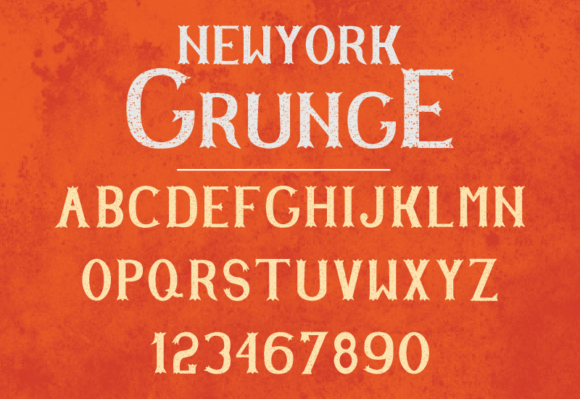
Introduction to Newyork Grunge Font
You’ve spent hours browsing through design resources, searching for the perfect font to elevate your creative project. But have you ever stumbled upon a font that instantly transports you to the vibrant streets of New York City? If not, let me introduce you to the Newyork Grunge Font, a vintage gem that’s about to become your new favorite design companion.
Imagine a font that exudes a raw, edgy charm, with geometric shapes and balanced proportions that scream Western cool. The Newyork Grunge Font is more than just a stylish design element – it’s a game-changer for designers who crave a unique aesthetic that sets their projects apart.
Key Features of Newyork Grunge Font
- Unique, distressed texture design ideal for creative projects, adding an urban touch to any design resource.
- Transparent background, allowing for easy layering and manipulation within design compositions.
- High-resolution design, suitable for print and digital applications, including posters, flyers, and social media graphics.
- Perfect for designers seeking a gritty, urban aesthetic for their creative projects.
Honest Review: Newyork Grunge Font
As a designer, I’m always on the lookout for high-quality design resources to elevate my creative projects. The Newyork Grunge Font caught my eye with its edgy, industrial aesthetic, perfect for adding a touch of grit to any design.
What works well with the Newyork Grunge Font is its versatility. It’s suitable for a wide range of designs, from posters and flyers to digital products and even logos. I appreciate how the font’s bold lines and rough texture add depth and visual interest to any layout. ✨ The transparent background feature also allows for seamless integration with other design elements.
However, there are some limitations to consider. The font’s rough texture can sometimes make it difficult to read, particularly in small font sizes. Additionally, the font may not be suitable for all types of designs, such as those requiring a clean, minimalist aesthetic. ⚠️
Overall, I’m impressed with the Newyork Grunge Font’s unique character and versatility. While it may not be perfect for every design project, it’s an excellent addition to any designer’s toolkit.
- Transparent background feature
- Edgy, industrial aesthetic
- Suitable for posters, flyers, digital products, and logos
The Newyork Grunge Font is a unique and high-quality design resource ideal for creative projects. This free download offers a distressed, edgy look that can elevate your designs. In this guide, we’ll walk you through how to use the Newyork Grunge Font in various platforms.
Tips for Getting the Most Out of Newyork Grunge Font
To get the most out of the Newyork Grunge Font, use it with a transparent background to create a seamless look. You can also experiment with different font sizes and styles to achieve the desired effect.
The Newyork Grunge Font is ideal for creative projects that require a distressed, edgy look. Some common use cases include:
- Music festival or concert posters